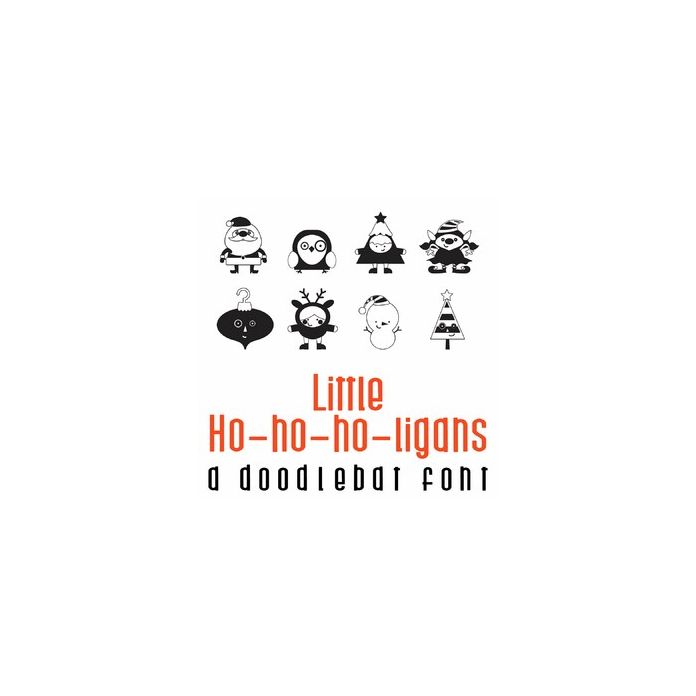
This fun doodlebat font features 26 adorable Christmas characters and images. Perfect for cards, gifts, decor, crafts, scrapbook pages, planner stickers and more!